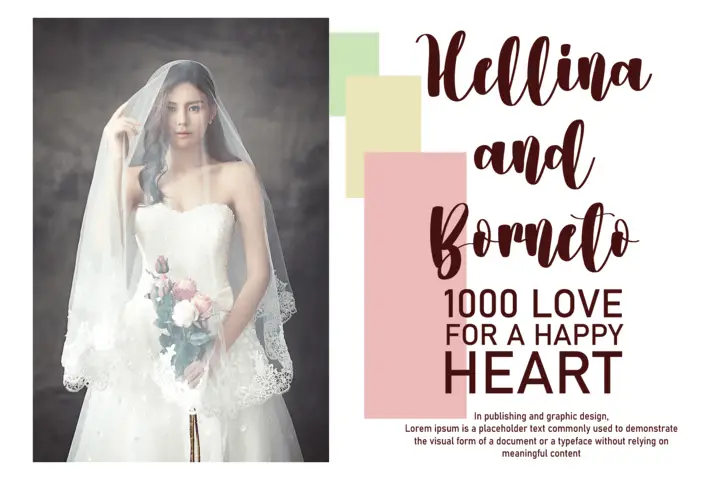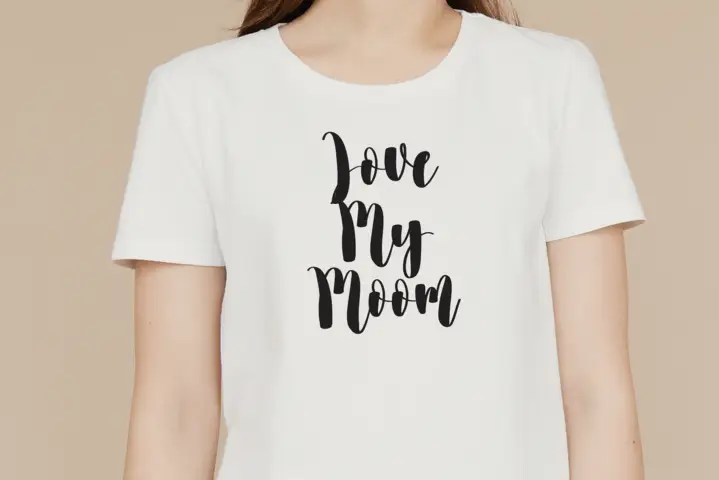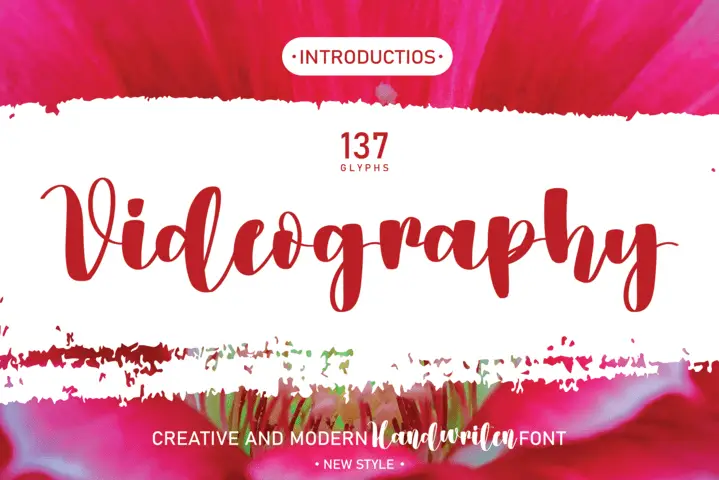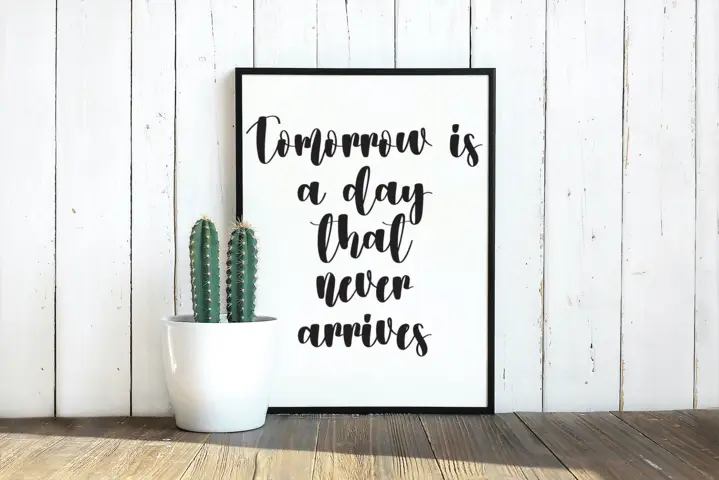
Videography Script Font
The Videography Script Font is a beautifully crafted typeface that embodies elegance and creativity. With its flowing lines and artistic flair, this font is perfect for various applications, including branding, logos, web design, and print materials.
• Stylish script design
• Weight: Regular, Bold
Utilize the Videography Script Font for invitations, social media graphics, and any project that requires a touch of sophistication.